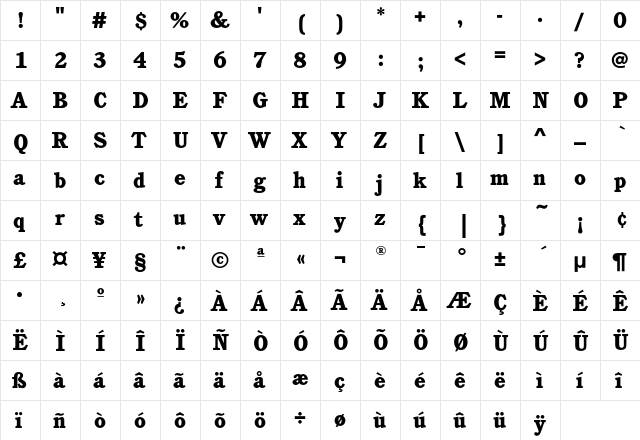
CushingEF-Heavy Regular
Design Context for CushingEF-Heavy Typeface
CushingEF-Heavy is a composed and adaptable typeface that performs quietly and consistently across a wide range of design contexts.